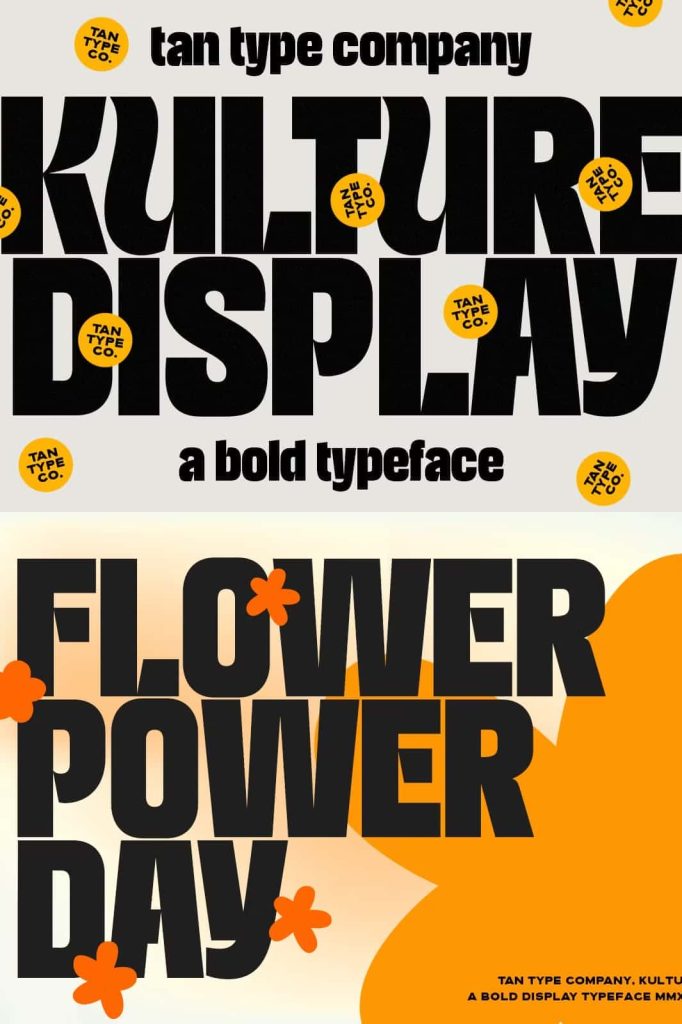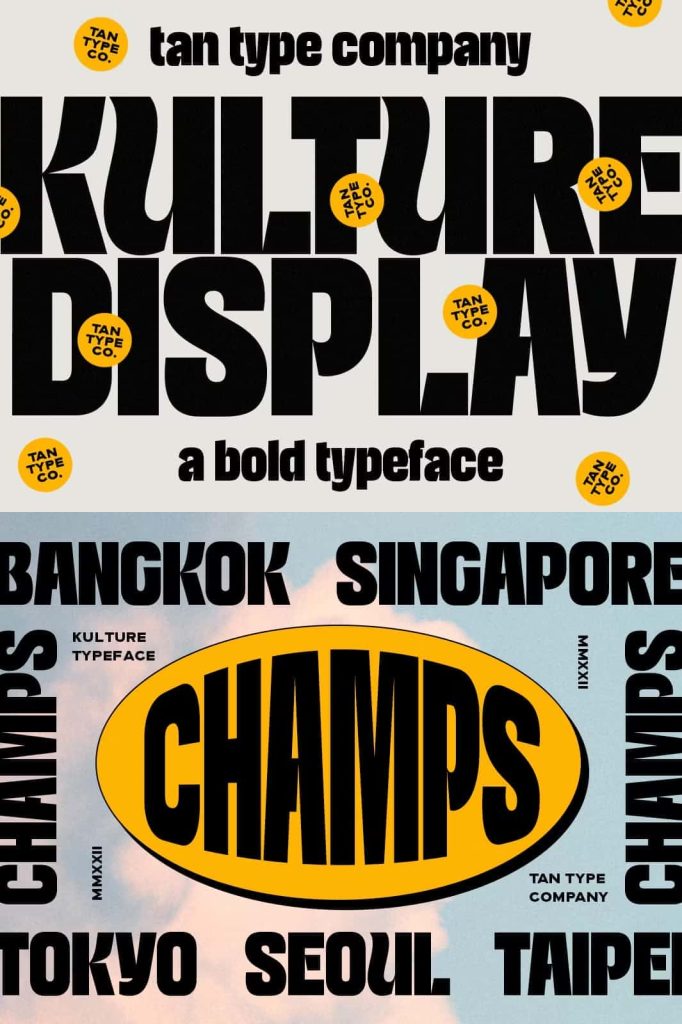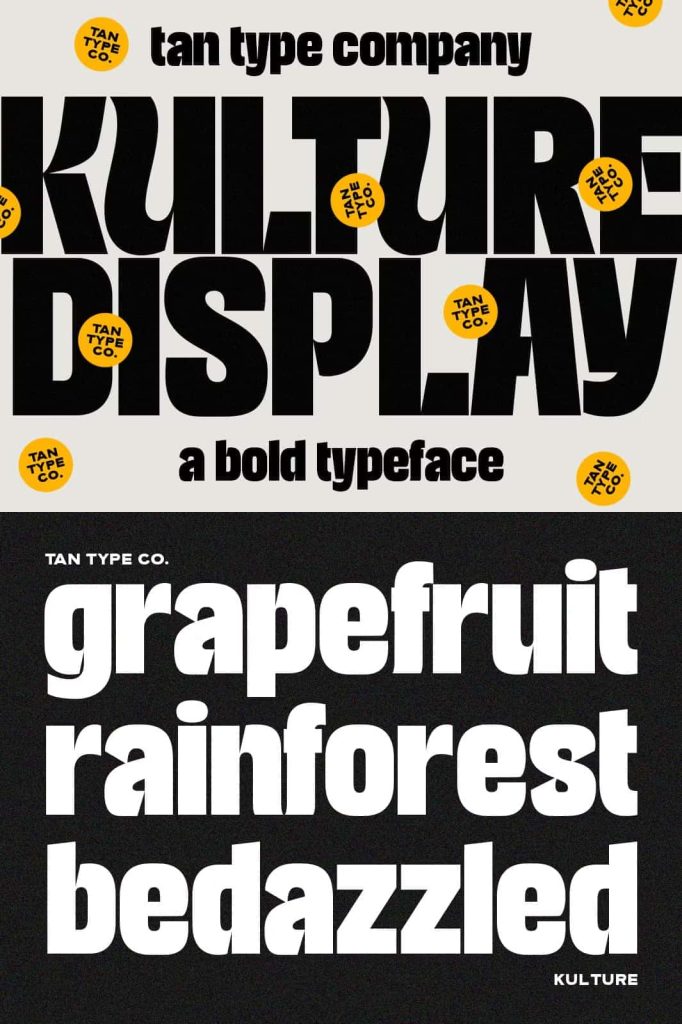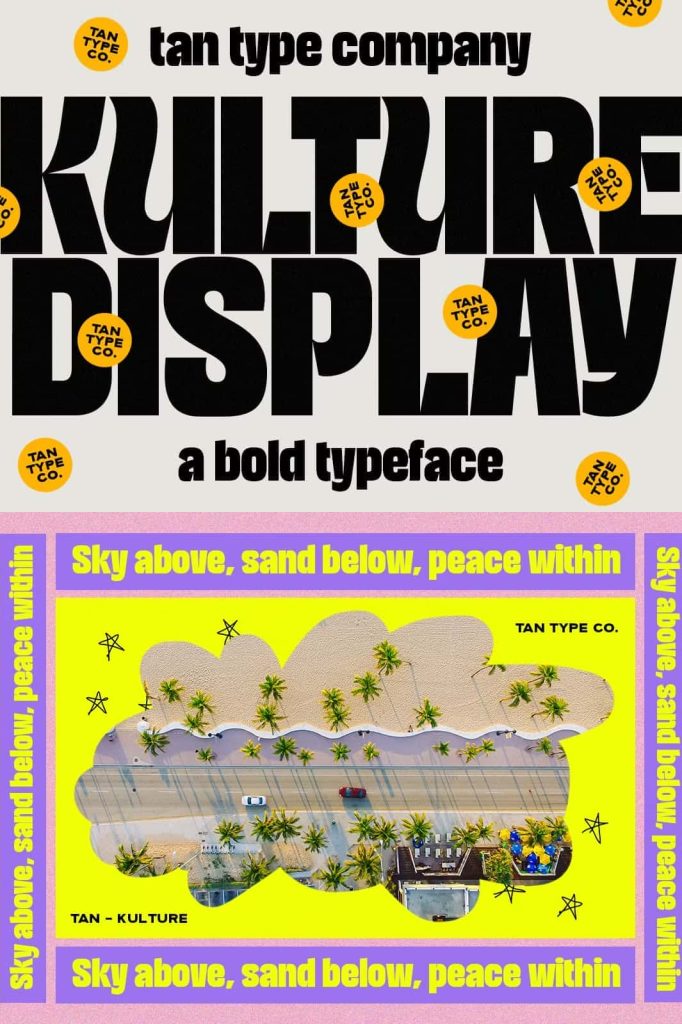
TAN – KULTURE is a bold display type. Simple in a good way and efficient with tight kernings making it a nice choice if you want a retro look in your design.